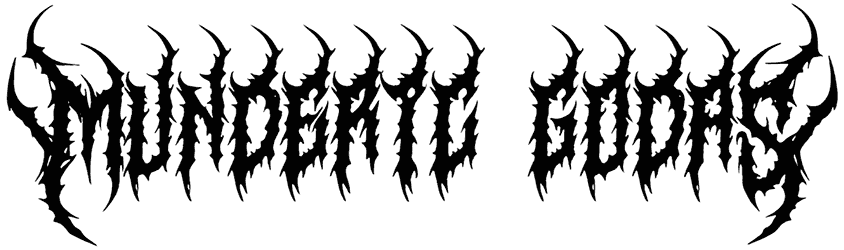
Munderic Godas Font
If you’re looking at Munderic Godas, thinking “What kind of psycho would choose something so horrible?” that means you still haven’t embraced the dark side. Because once you do, you’ll be back here, downloading this exact satanic font and even the rest too. You’ll see! It’s only a matter of time.
Like when there’s a death metal poster or something gangster to deliver, you’ll want to seem badass on purpose, and there’s no better reason than that for downloading Munderic Godas.